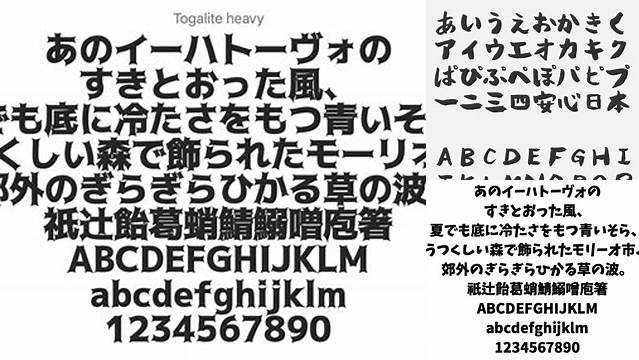
1. Understanding Japanese Font Styles
Before we jump into downloads, let's talk about the different styles of Japanese fonts. Just like English has serif, sans-serif, and script fonts, Japanese has its own variations. Understanding these will help you choose the perfect font for your needs. When we're talking about Japanese bold fonts, it's essential to consider the nuances of Japanese typography. The traditional styles, such as Mincho (ζζ) and Gothic (γ΄γ·γγ―), have their own bold variants that add emphasis and visual weight. Mincho, similar to serif fonts in English, often conveys a formal and elegant feel, while Gothic, akin to sans-serif, is more modern and straightforward. The bold versions of these fonts are particularly useful for headlines, titles, and any text that needs to stand out. Knowing the specific characteristics of each style ensures that the Japanese bold font you choose aligns with your design goals and communicates the intended message effectively. Think about the tone you want to convey β is it classic and refined, or bold and contemporary? This understanding will guide you in selecting the right Japanese bold font for your project.
7. Finding the Right Japanese Bold Font for Your Needs
With so many Japanese bold fonts available, it's important to find one that suits your specific needs. Consider the overall aesthetic you're going for. Are you aiming for a traditional or modern look? Do you need a font that's easy to read on small screens? Finding the right Japanese bold font can make a significant difference in how your text appears on your Android device. With a plethora of options available, it's crucial to consider your specific needs and preferences. Start by thinking about the overall aesthetic you're aiming for. Do you want a font that exudes a traditional Japanese feel, or are you leaning towards a more modern and contemporary look? Japanese bold fonts come in various styles, from the classic Mincho and Gothic to more stylized and unique designs. If you're aiming for a traditional look, consider a bold Mincho font. Mincho typefaces are similar to serif fonts in Western typography and often convey a sense of elegance and formality. On the other hand, if you prefer a modern aesthetic, a bold Gothic font might be a better choice. Gothic fonts are akin to sans-serif fonts and offer a clean and straightforward appearance. Another important factor to consider is readability, especially if you're using the font for body text or on small screens. Japanese bold fonts can sometimes be challenging to read at smaller sizes if the strokes are too thick or the characters are too intricate. Look for fonts that maintain clarity and legibility even when scaled down. You might also want to think about the specific purpose of the font. Are you using it for headlines, body text, or decorative elements? Different Japanese bold fonts may be better suited for different applications. For example, a bolder and more stylized font might work well for headlines, while a cleaner and more legible font might be preferable for body text. Finally, don't hesitate to experiment and try out different fonts until you find one that you truly love. Many font websites and apps offer previews or trial versions, allowing you to see how the font looks on your device before committing to it. By carefully considering your needs and exploring the available options, you can find the perfect Japanese bold font to enhance your Android device's typography.
8. Checking Font Licenses
Always, always check the font license before using it, especially for commercial projects. Some free fonts have restrictions on how you can use them, so make sure you're compliant. It's crucial to remember, guys, that font licenses are just as important as the font itself. Before you start using a Japanese bold font in any project, whether it's a personal blog post or a commercial advertisement, you need to understand the terms of its license. Ignoring font licenses can lead to legal trouble, so it's always better to be safe than sorry. Many free Japanese bold fonts come with specific restrictions on how you can use them. Some licenses may only allow personal, non-commercial use, while others may permit commercial use but require attribution or have other limitations. For example, a font might be free to use in a blog post but not in a product you sell. To avoid any potential legal issues, always check the font's license agreement before using it. This information is usually provided on the website where you downloaded the font or in a text file included in the font's download package. The license agreement will clearly outline the permitted uses of the font, as well as any restrictions or requirements. If the license isn't clear, it's always best to err on the side of caution and contact the font's creator or distributor for clarification. There are several common types of font licenses, including: * Freeware: These fonts are free to use for both personal and commercial projects, often without any restrictions. * Shareware: These fonts may be free for personal use but require a fee for commercial use. * Commercial: These fonts require a license purchase for any use, whether personal or commercial. * Open Source: These fonts are typically free to use, modify, and distribute, but may require attribution. By taking the time to check the font license, you can ensure that you're using the Japanese bold font legally and ethically, protecting yourself from potential copyright infringement claims.
9. Common Issues and Troubleshooting
Sometimes, fonts might not display correctly or cause other issues. This could be due to compatibility problems or incorrect installation. If you run into trouble, try reinstalling the font or checking for updates to your font installer app. Even with the best preparation, you might encounter issues when installing or using Japanese bold fonts on your Android device. Common problems include fonts not displaying correctly, causing errors in apps, or simply not appearing in the font selection menu. When these situations arise, troubleshooting is key to getting your Japanese bold font working as expected. One of the first things to try is reinstalling the font. Sometimes, the installation process can be interrupted or incomplete, leading to font display issues. Uninstalling the font and then reinstalling it can often resolve these problems. Make sure to follow the installation instructions provided by your font installer app or custom launcher carefully. Another potential cause of font issues is compatibility problems. Not all Japanese bold fonts are created equal, and some may not be fully compatible with your Android device or specific apps. If you're experiencing issues with a particular font, try using a different font to see if the problem persists. If other fonts work correctly, the issue is likely with the font itself. Font installer apps and custom launchers are constantly being updated to improve compatibility and fix bugs. If you're experiencing problems with a Japanese bold font, check for updates to your app or launcher. Installing the latest version can often resolve compatibility issues and improve font rendering. In some cases, font issues can be caused by conflicts with other apps or system settings. If you've recently installed a new app or changed a system setting, try reverting those changes to see if they're causing the problem. If all else fails, you can try clearing the cache and data for your font installer app or custom launcher. This can sometimes resolve conflicts and allow the font to be displayed correctly. However, be aware that clearing data will reset the app to its default settings, so you may need to reconfigure your preferences. By systematically troubleshooting common issues, you can often get your Japanese bold font working correctly and enjoy a personalized typography experience on your Android device.
10. Converting Fonts to TTF
If you have a font in a different format, you might need to convert it to TTF to use it on Android. There are several online font converters that can help you with this. If you've stumbled upon a fantastic Japanese bold font that isn't in TTF format, don't worry! Converting fonts to TTF (TrueType Font) is a relatively simple process, and there are several tools available to help you achieve this. TTF is the most widely compatible font format for Android devices, so converting your font ensures that it will display correctly on your phone or tablet. There are numerous online font converters that you can use to convert your Japanese bold font to TTF. These converters are typically free and easy to use, requiring you to simply upload your font file and select TTF as the output format. Some popular online font converters include Convertio, Onlinefontconverter.com, and FontConverter.io. Using an online font converter is a convenient option if you only need to convert a font occasionally. However, if you frequently convert fonts, you might consider using a dedicated font management software program. These programs often include font conversion features as well as other useful tools for organizing and managing your fonts. Some popular font management programs include FontBase, NexusFont, and FontExplorer X Pro. When converting your Japanese bold font to TTF, it's important to ensure that the conversion process doesn't compromise the font's quality or integrity. Choose a reputable converter and carefully review the converted font to make sure it looks as expected. Some converters may introduce slight changes to the font's appearance, so it's always a good idea to compare the original and converted versions. Once you've converted your Japanese bold font to TTF, you can install it on your Android device using a font installer app or custom launcher, as discussed earlier in this article. With the right tools and a little bit of effort, you can easily convert fonts to TTF and expand your typography options on your Android device.
11. Understanding Japanese Characters
12. The Beauty of Bold Japanese Typography
13. Using Bold Fonts for Headlines
14. Bold Fonts in App Design
15. Pairing Bold Fonts with Other Styles
16. Bold Fonts for Branding
17. Creating a Unique Aesthetic
18. Bold Fonts and Readability
19. The Impact of Font Choice
20. Exploring Different Weights of Bold Fonts
21. Finding Fonts with Complete Character Sets
22. Testing Fonts on Different Devices
23. Creating Custom Bold Fonts
24. Font Design Principles
25. The Future of Japanese Fonts
26. Bold Fonts in Social Media Graphics
27. Bold Fonts in Presentation Slides
28. Bold Fonts in Website Design
29. Bold Fonts in Print Materials
30. Maintaining Font Consistency